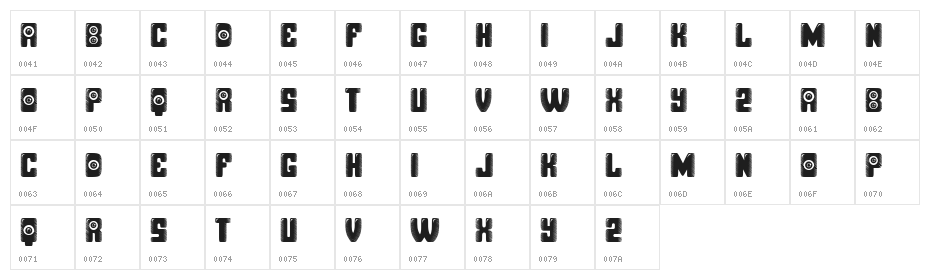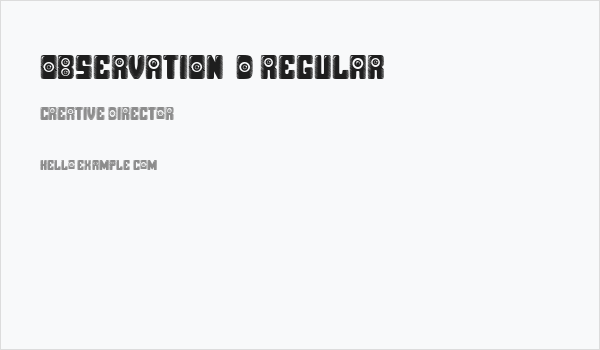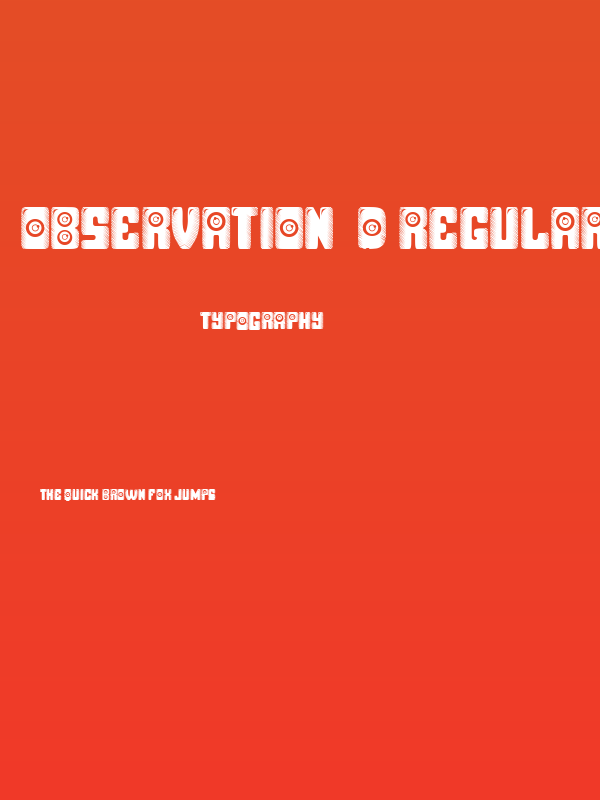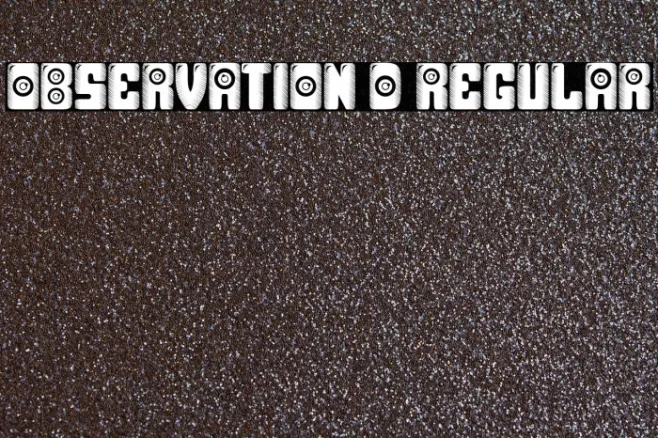
Observation 3D Regular Font
Observation 3D Regular Description
This font features a bold, three-dimensional appearance with a unique shadow effect that gives each character a sense of depth and movement. The letters are uppercase and have a solid, block-like structure, making them highly visible and impactful. The design incorporates a series of diagonal lines within each character, enhancing the 3D illusion and adding a dynamic texture. This font is ideal for creating eye-catching headlines or titles that require a strong visual presence. Its playful yet robust style makes it suitable for creative projects that aim to stand out.
| Proposed Projects | Ideal for posters, logos, video game titles, and any project requiring a striking visual impact. |